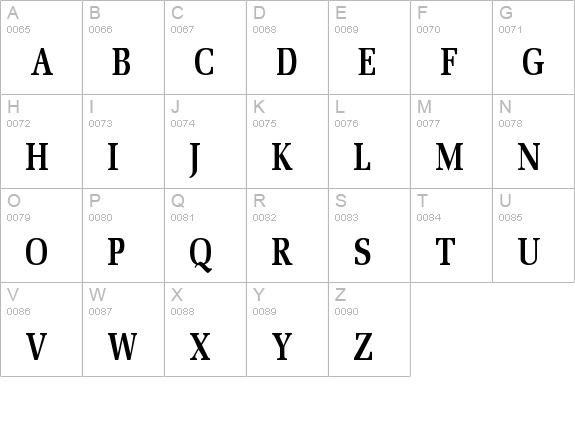
MemoirCondensed Bold Font Details
MemoirCondensed Bold is a strong, high-contrast variant in the MemoirCondensed typeface family \xE2\x80\x94 well suited to headlines, attention-grabbing titles, and strong calls-to-action.
MemoirCondensed Bold font is a striking and elegant typeface that exudes sophistication and charm. With its bold and condensed design, this font is perfect for making a statement in headlines, titles, and branding materials. The strong and distinctive characters of MemoirCondensed Bold demand attention while maintaining readability and clarity. What makes this font even more appealing is that it is available for free download at FontsMarket.com. This means that you can easily access and use MemoirCondensed Bold in your projects without any cost. Whether you are designing a poster, logo, or website, this font will add a touch of style and professionalism to your work. Don't miss out on the opportunity to enhance your designs with the timeless elegance of MemoirCondensed Bold. Download it for free today at FontsMarket.com!